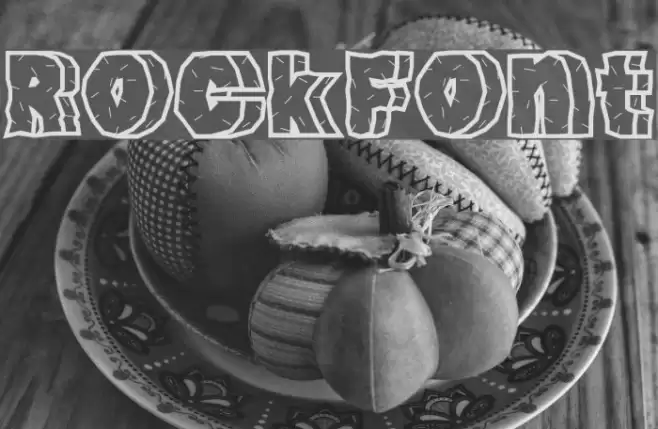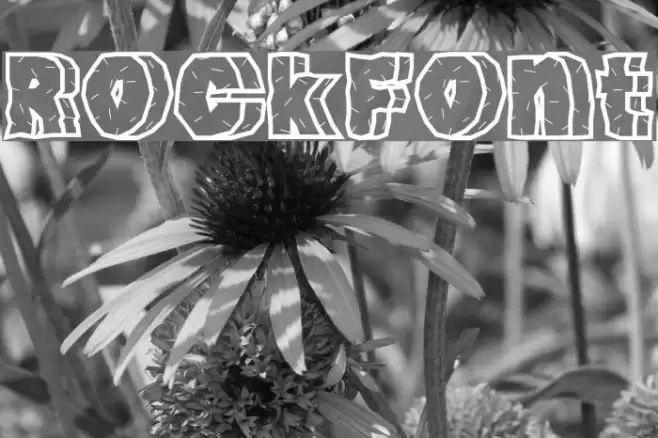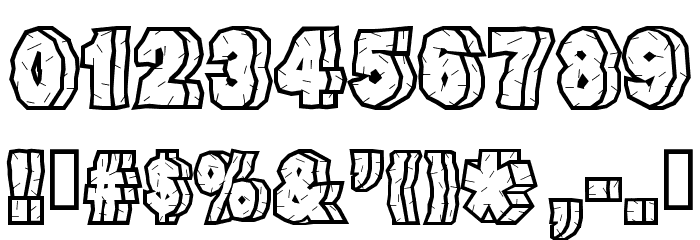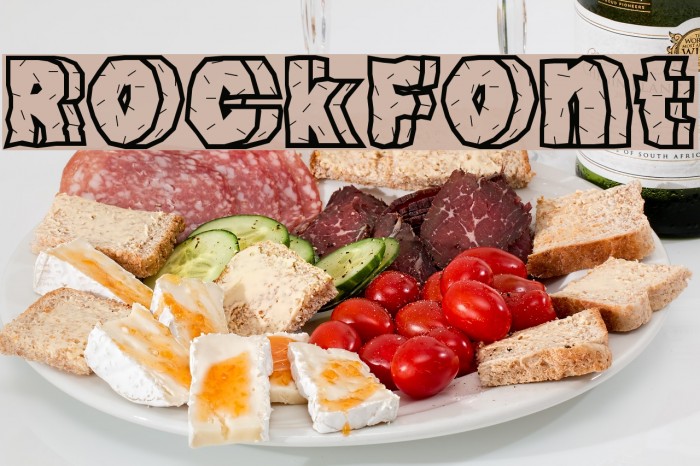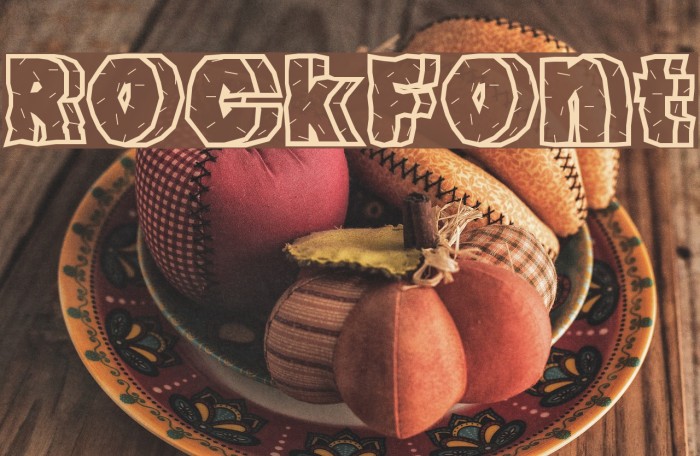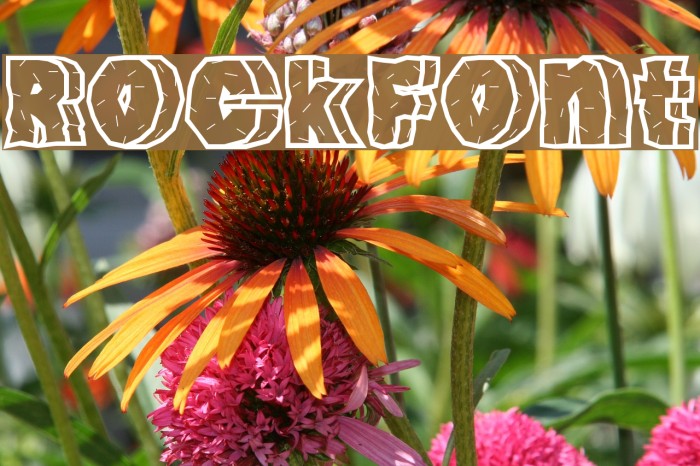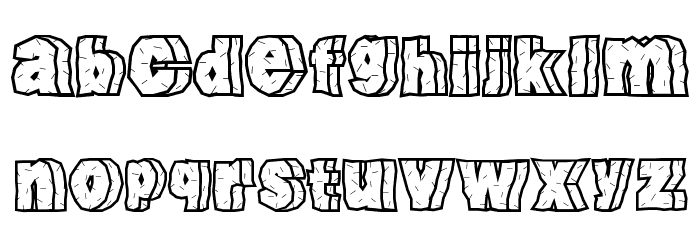
RockFont Font
RockFont Description
This font features a rugged, textured appearance reminiscent of cracked stone or rock surfaces. The characters are bold and heavily outlined, giving them a strong, impactful presence. Each letter and number has a unique, irregular pattern that adds to the overall rugged aesthetic. The font is highly decorative, making it ideal for projects that require a bold statement or a theme related to nature, strength, or durability. The uppercase and lowercase letters maintain a consistent style, with the uppercase being slightly more pronounced. The numbers and special characters follow the same design principles, ensuring a cohesive look across all elements.
A bold, textured font with a rugged, rock-like appearance from Decorative fonts.
- Proposed Projects: Ideal for rock band logos, outdoor adventure branding, themed event posters, and any design needing a strong, natural aesthetic.